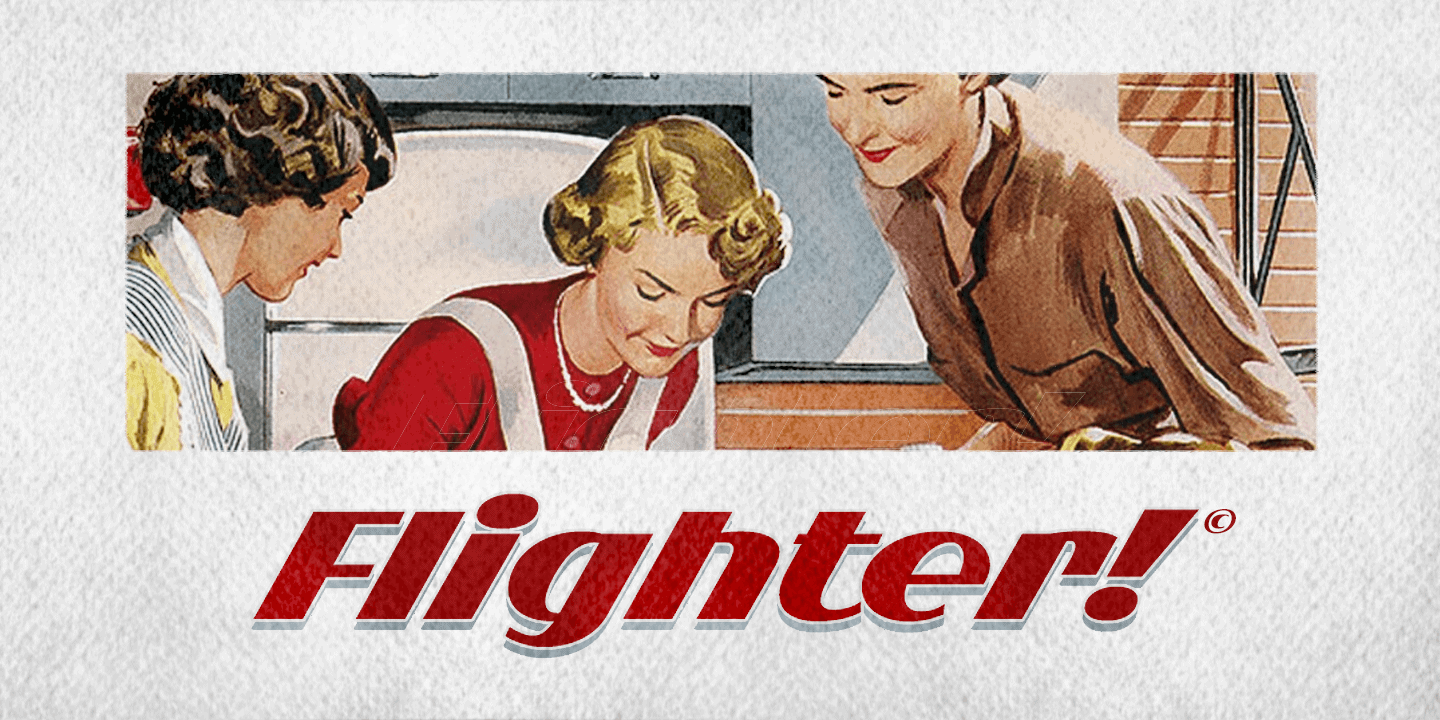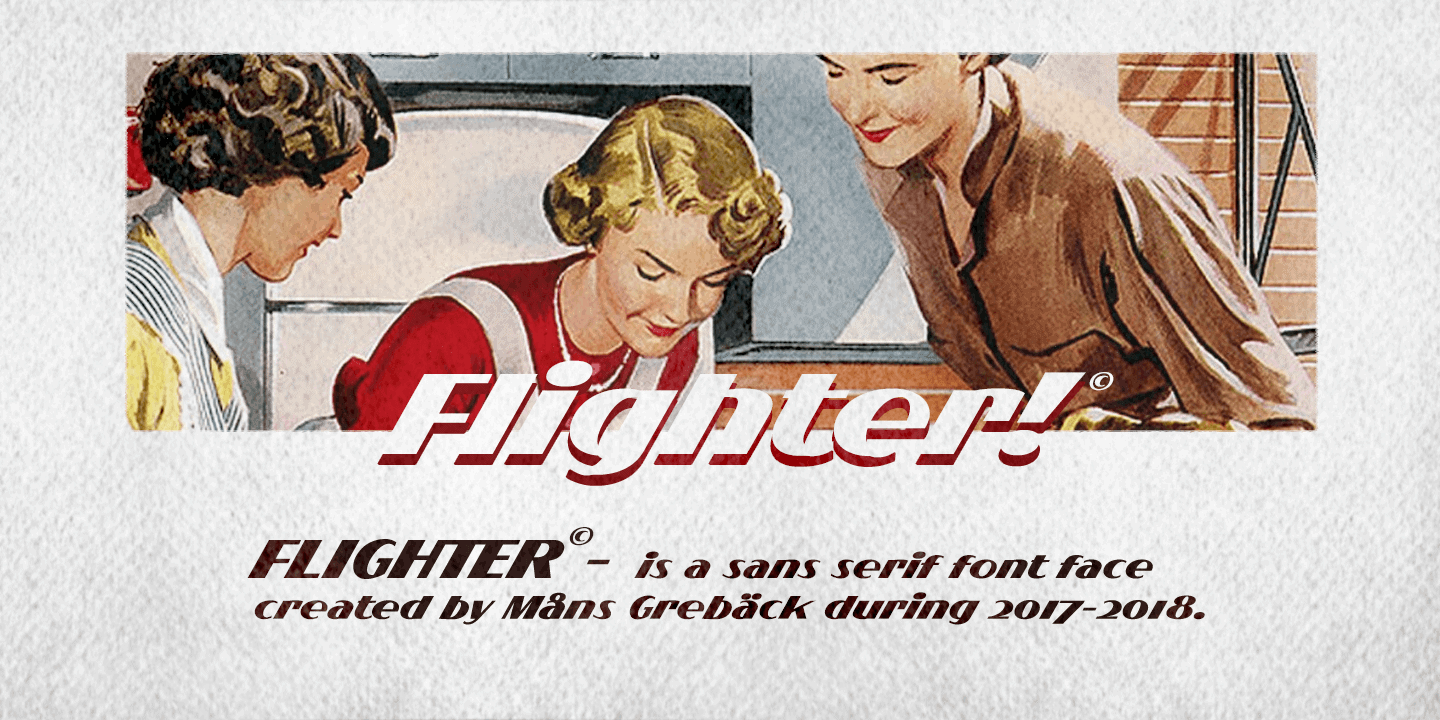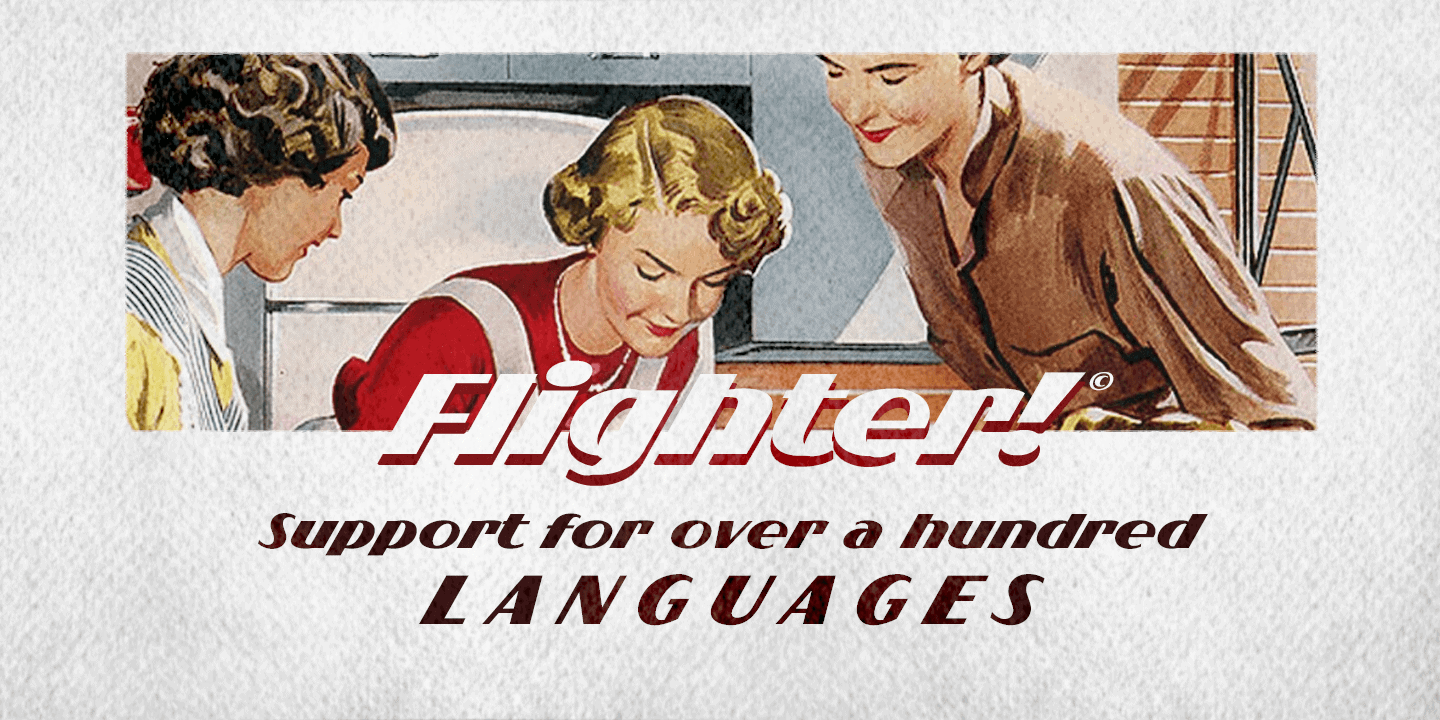
Flighter
Flighter is a bold sans-serif typeface, in a somewhat geometric and balanced style.
It has speed and stability and should bring the thoughts to a mid 20th century traveler.
Created by Måns Grebäck in 2017-2018, this high-quality font has support for hundreds of languages.